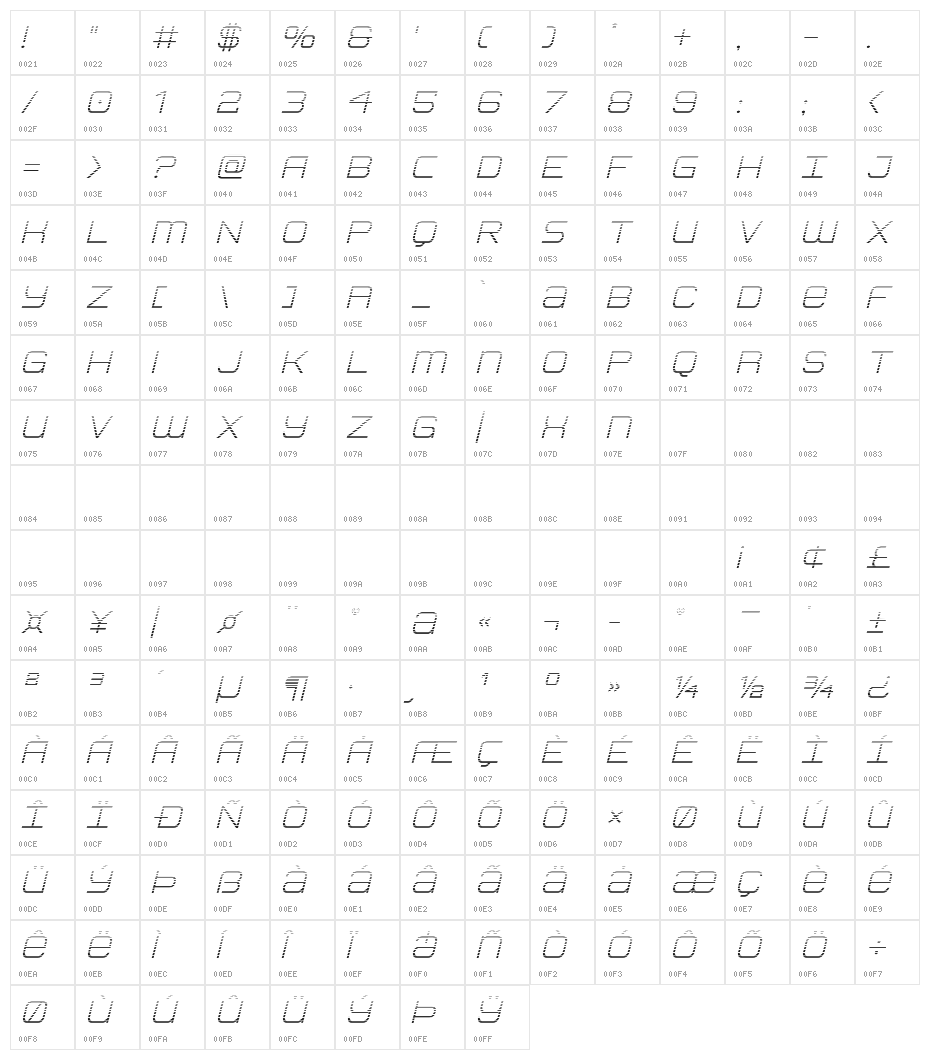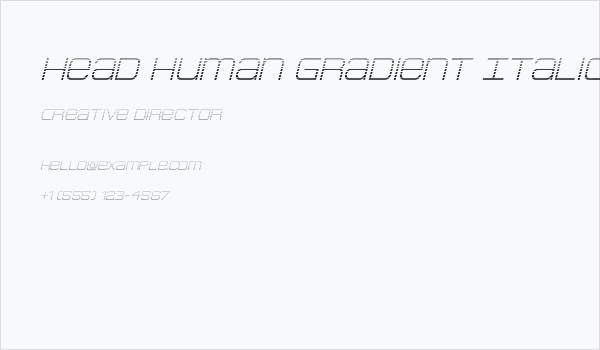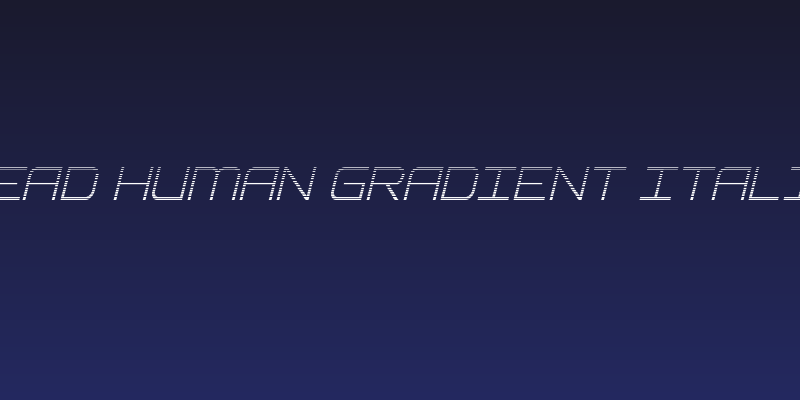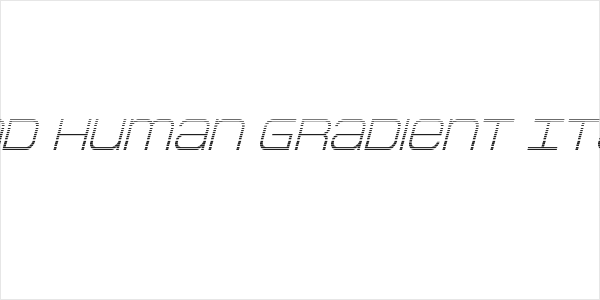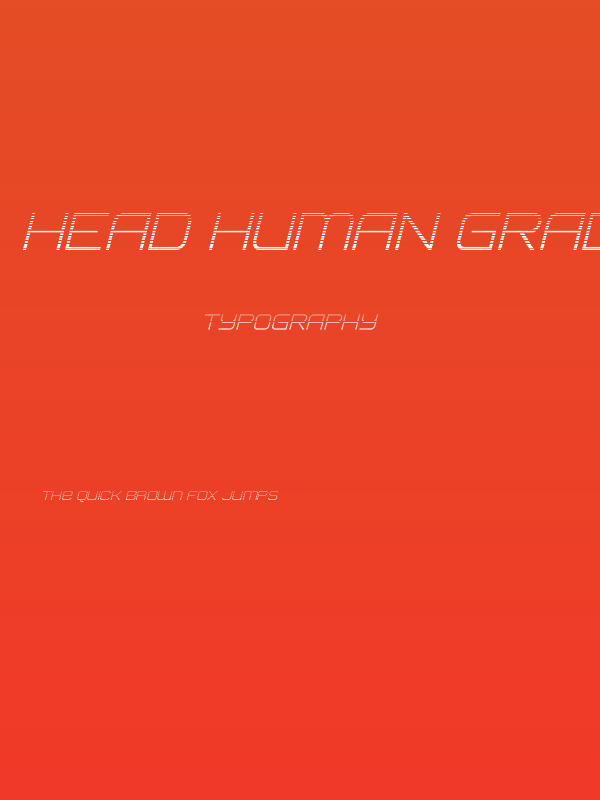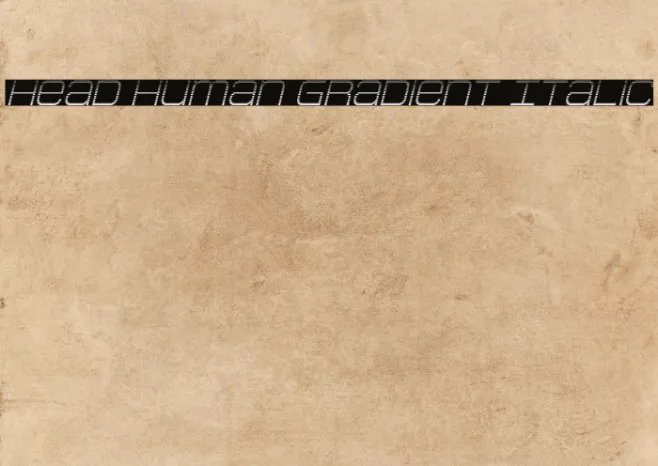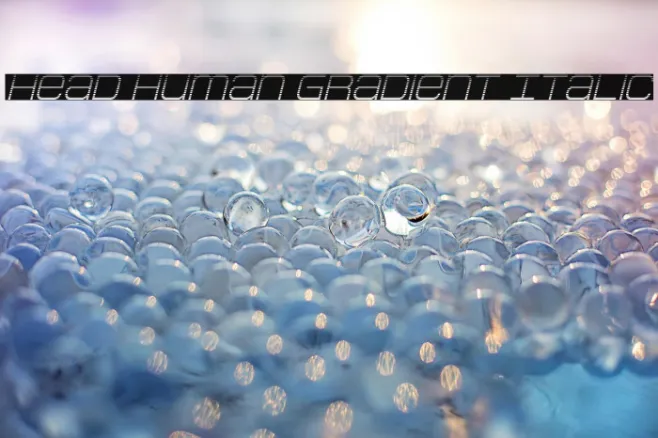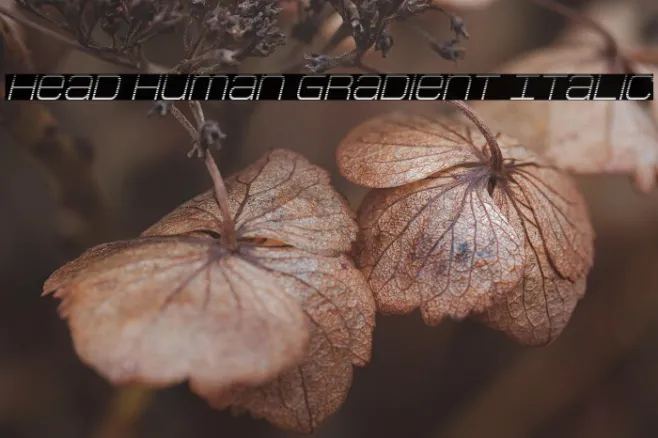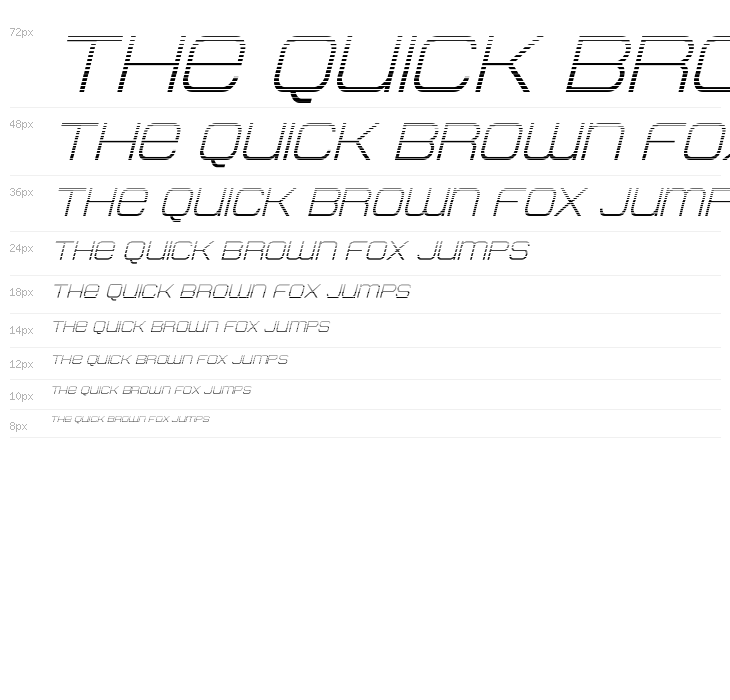
Head Human Gradient Italic Font
Head Human Gradient Italic Description
This font features a modern, futuristic design with a distinctive gradient effect that gives it a dynamic and energetic appearance. The italicized style adds a sense of motion and speed, making it ideal for projects that require a contemporary and cutting-edge look. The characters are constructed with a series of parallel lines, creating a unique texture and visual interest. The uppercase and lowercase letters maintain a consistent style, while the numerals and special characters complement the overall aesthetic. The font's sleek and streamlined appearance makes it suitable for a variety of creative applications.
| Proposed Projects | Ideal for tech branding, sports team logos, futuristic posters, and digital media projects. |